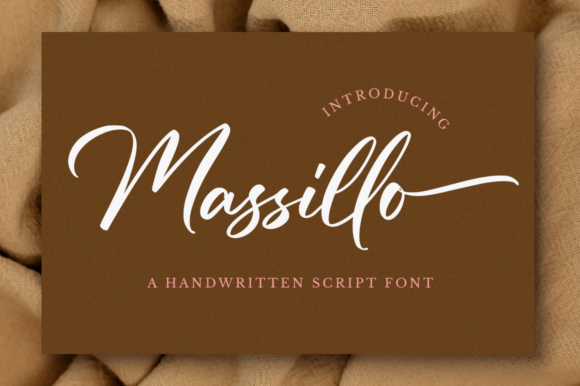
Dive into the Enchanting Realm of Massillo: A Font Symphony for Creative Expression
Unleash your creativity and embark on a typographic journey with Massillo, an exquisitely handcrafted script font that exudes elegance and charm. Meticulously designed by the talented NissaStudio, Massillo is a visual masterpiece that captures the essence of handwritten beauty. Its graceful strokes and harmonious curves lend an air of sophistication and artistry to any project.
Massillo: A Script Font Symphony for Creative Expression
As you explore the depths of Massillo's character set, you'll discover a world of versatility and allure. Its carefully crafted glyphs exude a timeless appeal, making them the perfect choice for a diverse range of creative endeavors. From heartfelt invitations and alluring branding designs to captivating social media posts and eye-catching marketing materials, Massillo effortlessly elevates the ordinary into the extraordinary.
Immerse yourself in the world of Massillo and let your imagination soar. Its flowing lines and delicate swashes add a touch of whimsical charm to any design, while its well-balanced structure ensures readability and clarity. Whether you're a seasoned designer seeking inspiration or a passionate hobbyist exploring the world of typography, Massillo will undoubtedly captivate your senses and leave you enthralled.
Experience the Magic of Massillo: A Font Designed to Inspire
Step into the realm of Massillo and discover a font that ignites your creativity and sparks your imagination. Its intricate details and subtle nuances invite you to explore new design possibilities and push the boundaries of your artistic expression. With Massillo, your words will dance across the page with grace and elegance, leaving a lasting impression on your audience.
Massillo: The Perfect Font for Unforgettable Designs
Whether you're crafting a heartfelt message, designing a captivating logo, or creating stunning social media graphics, Massillo is the ultimate font companion. Its versatile nature makes it ideal for a multitude of projects, from elegant wedding invitations and sophisticated business cards to vibrant posters and enchanting book covers. Embrace the power of Massillo and watch your designs transform into captivating masterpieces that resonate with your audience.
Embrace the Beauty of Massillo: A Font that Enchants and Endures
Massillo is more than just a font; it's an invitation to embark on a journey of self-expression and creative exploration. Its timeless charm and enduring appeal ensure that your designs will stand the test of time, leaving a lasting legacy of beauty and inspiration. As you delve deeper into the world of Massillo, you'll discover a treasure trove of endless possibilities, where your creativity knows no bounds.